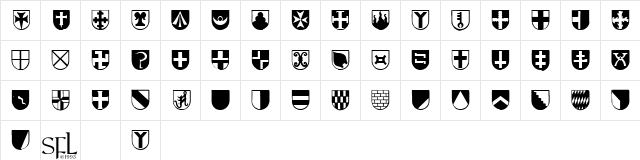
Herald Regular
Design Context for Herald Typeface
Herald is a composed and adaptable typeface that performs quietly and consistently across a wide range of design contexts.